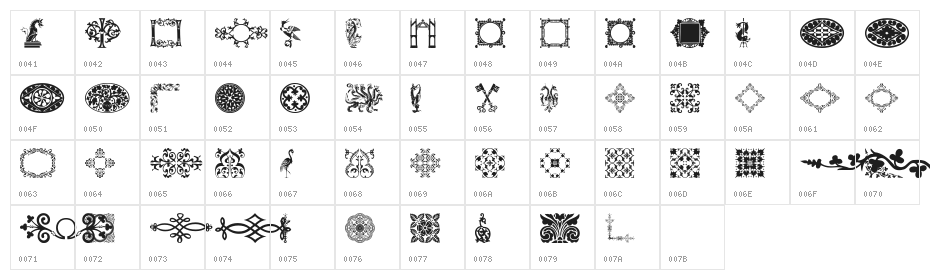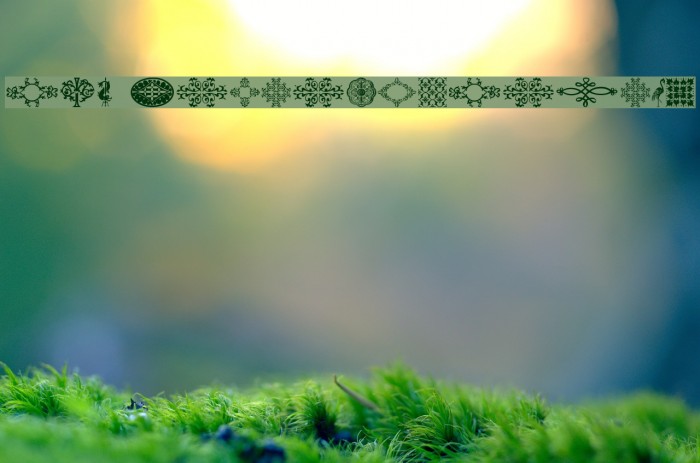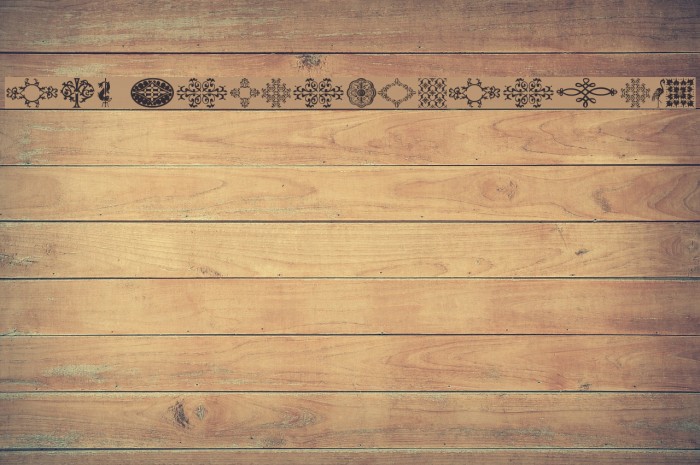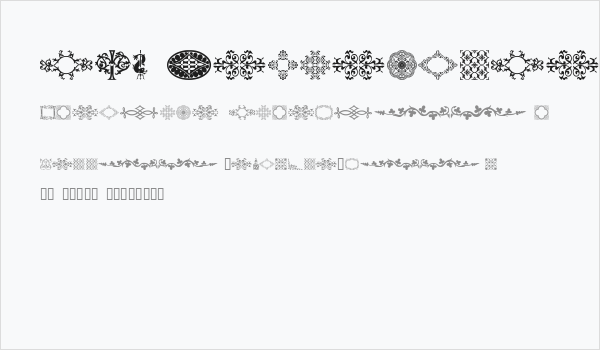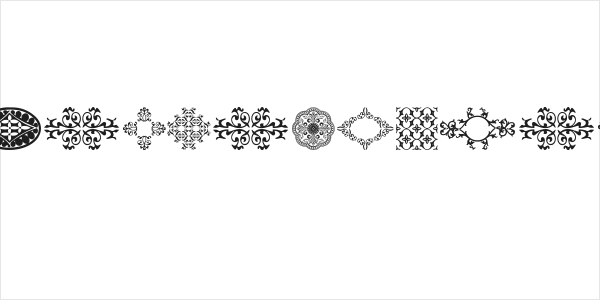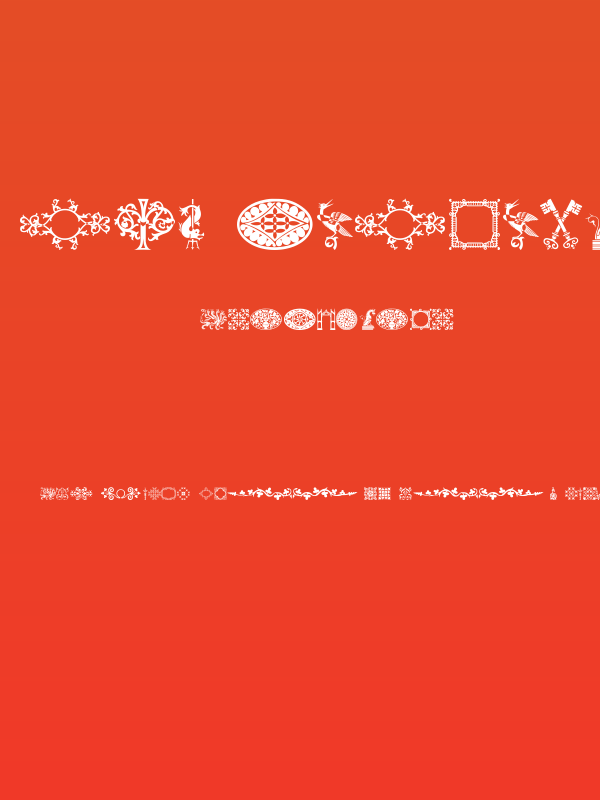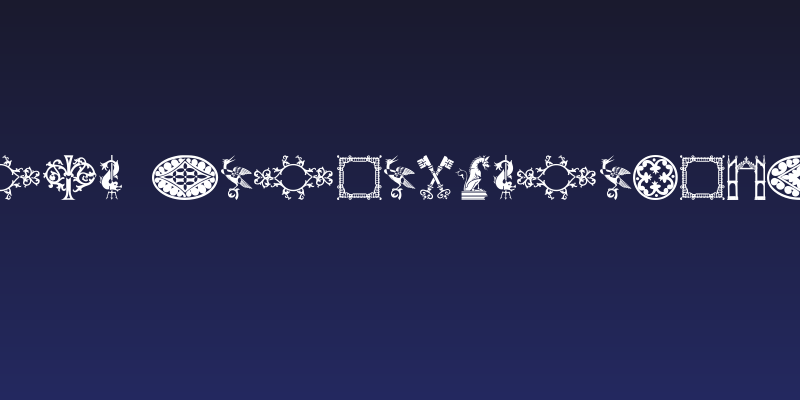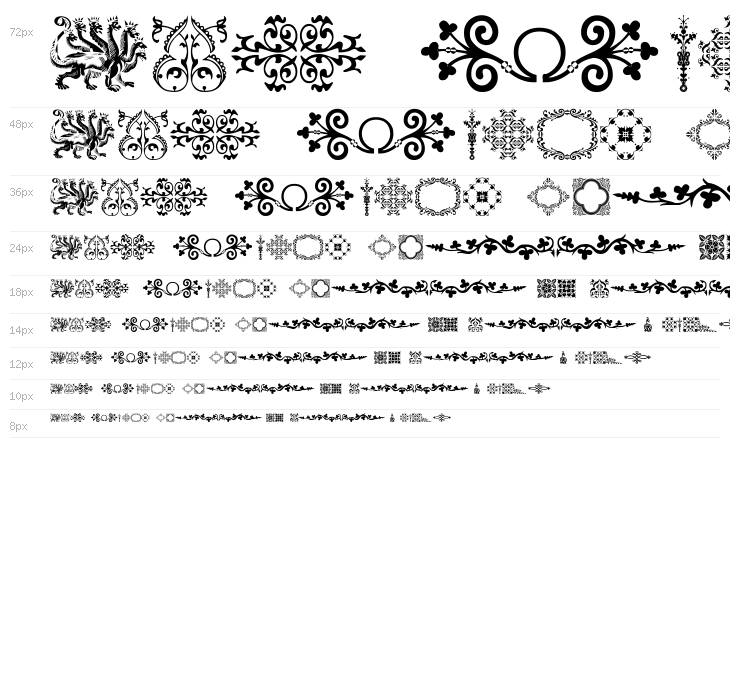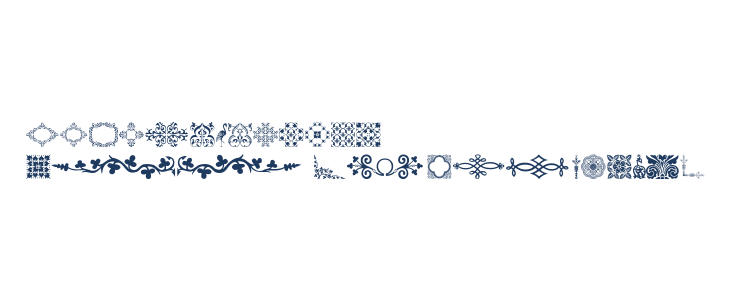
DBL MedievalDesign Font
DBL MedievalDesign Description
A highly decorative and ornamental set of glyphs featuring medieval-inspired motifs, including intricate borders, flourishes, animals, and geometric shapes. The designs are complex, with high contrast and elaborate detailing, suitable for embellishments rather than standard text.
Overall StyleMedieval, Decorative, Vintage
Use CaseBorders, embellishments, decorative accents, not for body text.
Proposed ProjectsBook covers, invitations, certificates, decorative borders, vintage posters, themed event materials.